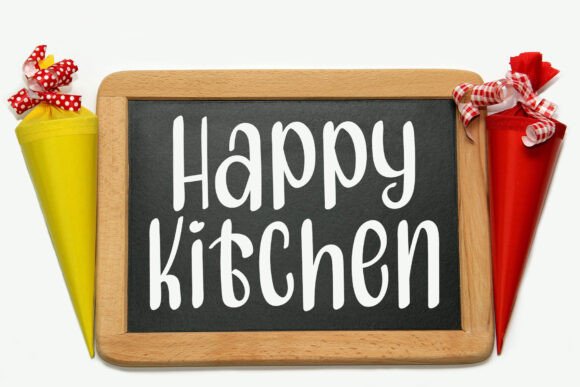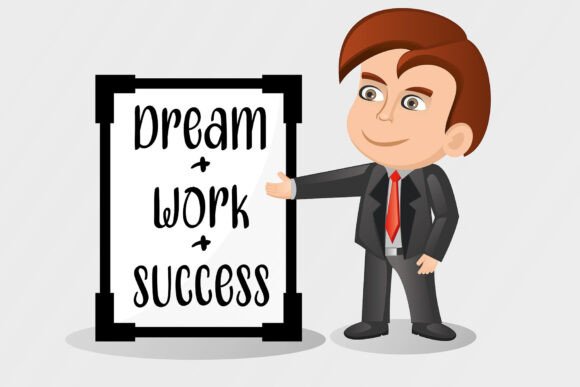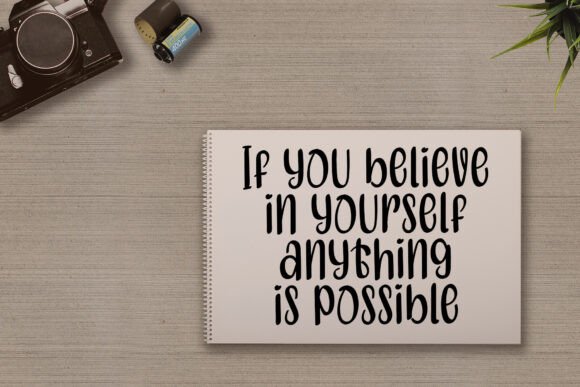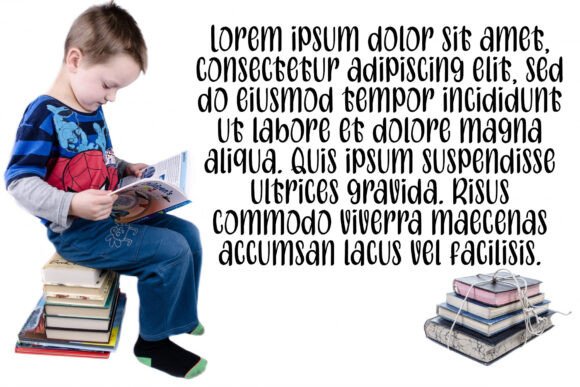
Crafter Font: Elevate Your Designs with a Unique and Elegant Handwritten Touch
Are you a designer or crafter looking for a font that can add a personal touch to your creations? Look no further than the Crafter Font. This beautiful, unique, and elegant font is perfect for a variety of design projects, including wedding invitations, greeting cards, billboards, logos, business cards, and more.
The Characteristics of Crafter Font
One of the standout features of the Crafter Font is its varied baseline, which gives it a natural, hand-made look. This font is designed to mimic the imperfections of handwriting, creating a warm and inviting feel that’s perfect for designs that require a personal touch. The Crafter Font is also PUA encoded, making it easy to access all glyphs and swashes with ease.
Why Choose Crafter Font?
So, why choose the Crafter Font for your design projects? Here are just a few reasons:
• Unique and Elegant: The Crafter Font is a one-of-a-kind font that’s sure to make your designs stand out. Its elegant and refined look makes it perfect for high-end designs, such as wedding invitations and luxury branding.
• Handwritten Touch: The Crafter Font features a natural, handwritten touch that’s perfect for designs that require a personal feel. Whether you’re creating a greeting card or a logo, this font will add a warm and inviting touch to your design.
• Versatile: The Crafter Font is incredibly versatile and can be used for a wide range of design projects. From billboards to business cards, this font will look great on any design that requires a handwritten touch.
• PUA Encoded: The Crafter Font is PUA encoded, making it easy to access all glyphs and swashes with ease. This means you can create stunning designs with intricate details and flourishes.
How to Use Crafter Font in Your Designs
Using the Crafter Font in your designs is easy. Here are a few tips to get you started:
• Pair it with Other Fonts: The Crafter Font pairs well with other fonts, such as sans-serif fonts and script fonts. Experiment with different font combinations to create a unique look.
• Use it for Headlines and Titles: The Crafter Font is perfect for headlines and titles, where its elegant and refined look can really shine.
• Add Swashes and Flourishes: With its PUA encoding, you can easily add swashes and flourishes to your design. This is a great way to add a personal touch to your designs and make them stand out.
Who Can Benefit from Crafter Font?
The Crafter Font is perfect for a variety of designers and crafters, including:
• Wedding Designers: The Crafter Font is perfect for wedding designers who want to create beautiful and elegant wedding invitations, save-the-dates, and other wedding stationery.
• Graphic Designers: Graphic designers can use the Crafter Font to add a personal touch to their designs, from logos to brochures.
• Crafters: Crafters can use the Crafter Font to create beautiful and unique crafts, such as handmade cards and gift tags.
• Stationery Designers: Stationery designers can use the Crafter Font to create beautiful and elegant stationery, such as letterheads and notebooks.
In conclusion, the Crafter Font is a unique and elegant font that’s perfect for designers and crafters who want to add a personal touch to their creations. With its varied baseline, PUA encoding, and elegant look, this font is sure to make your designs stand out. Whether you’re creating wedding invitations, logos, or handmade crafts, the Crafter Font is a great choice.